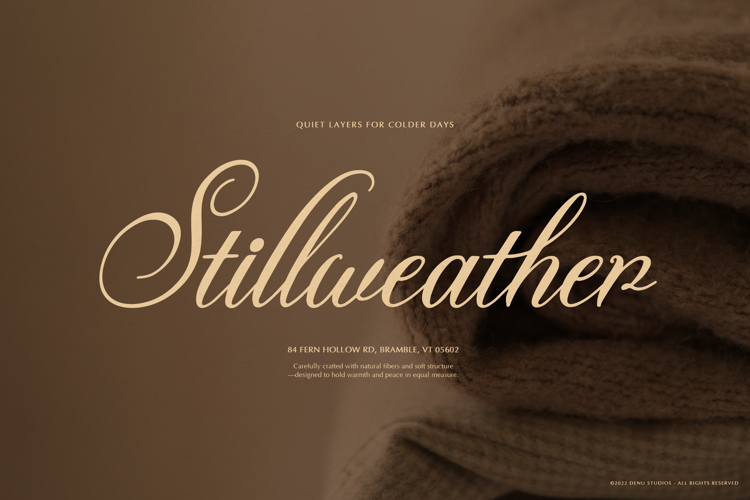
Kollegaly Rosalina Font
Kollegaly Rosalina | Elegant Calligraphy product packaging, mugs, quotes, posters, shopping bags, t-shirts, book covers, name card, invitation cards, greeting cards, label, photography, watermark, special events, and all your other lovely projects that need a Elegant Calligraphy taste.